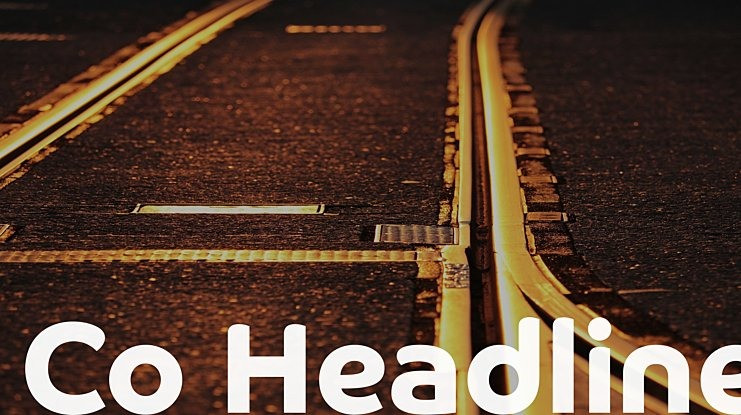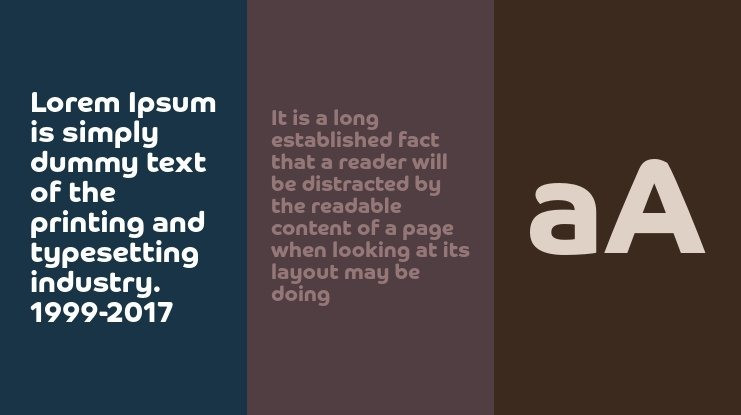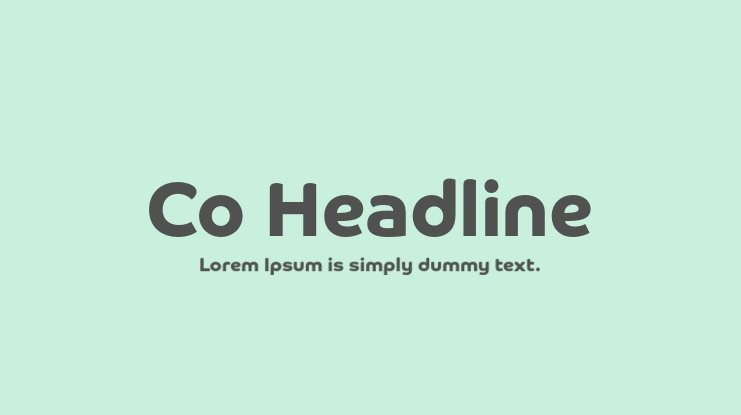
Co Headline Sans Serif Font, It would be a perfect choice to design posters, affiches, logos, t-shirt and magazine prints, eye-pleasing typographic designs and more.
Co Headline Font
| Classification: | Display Fonts, Sans Serif Fonts |